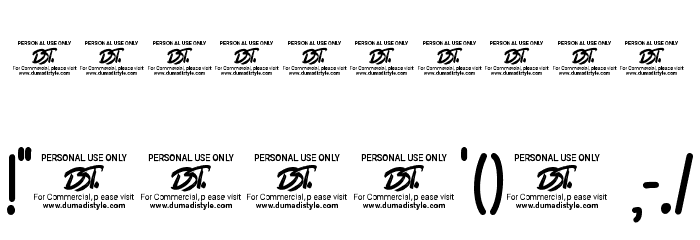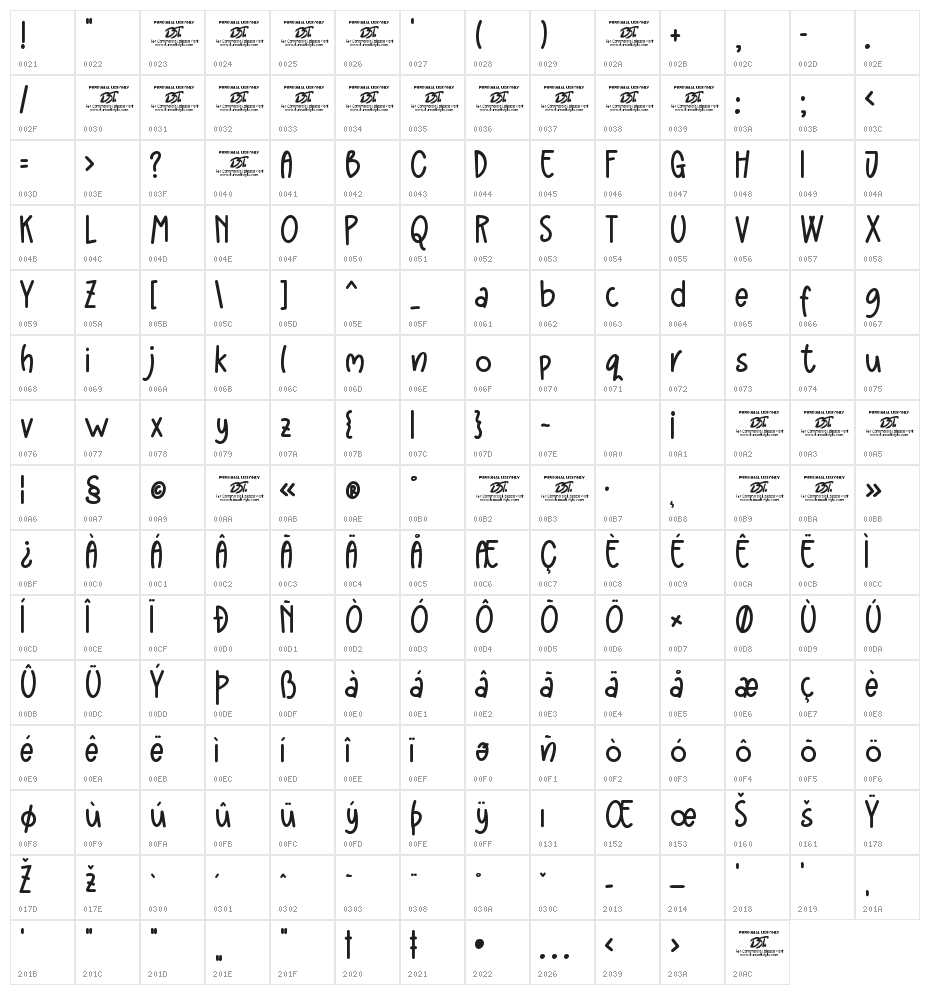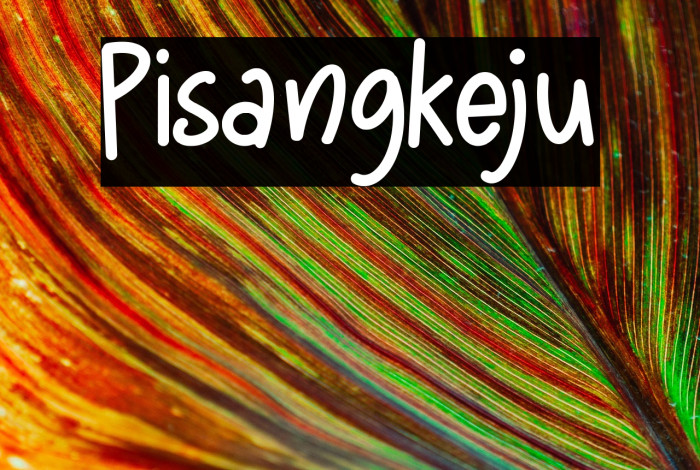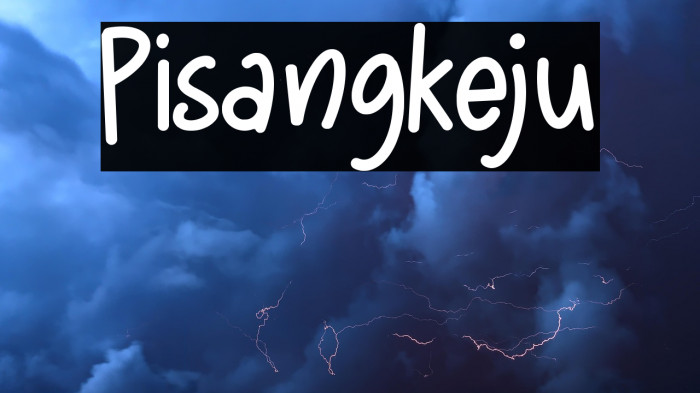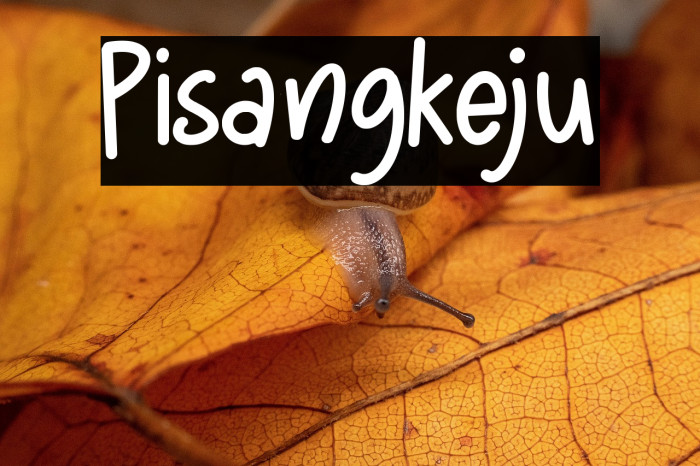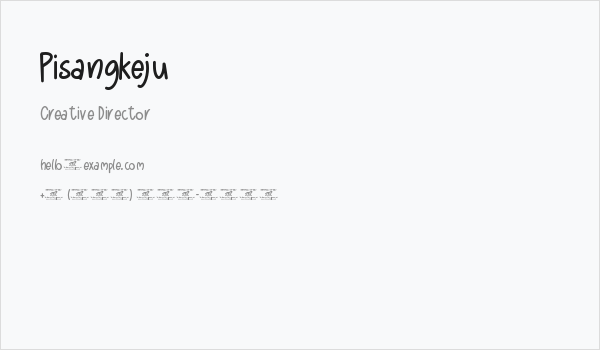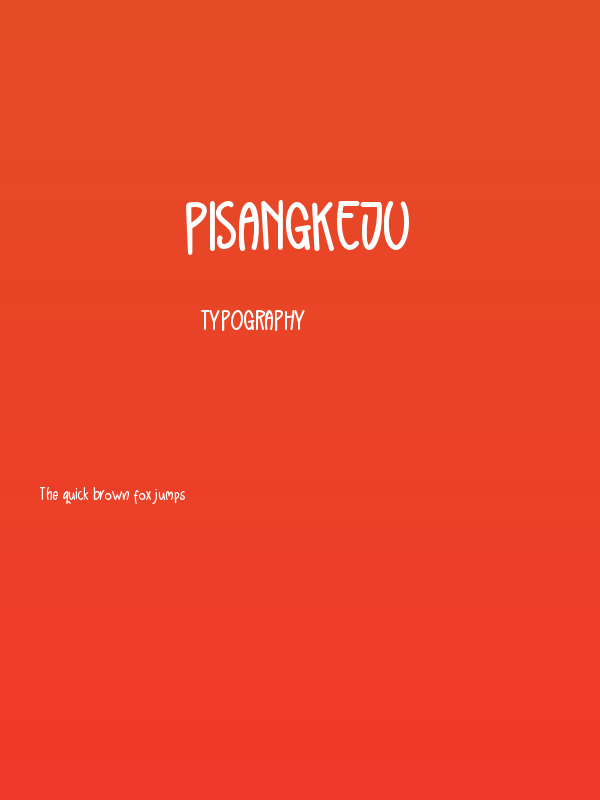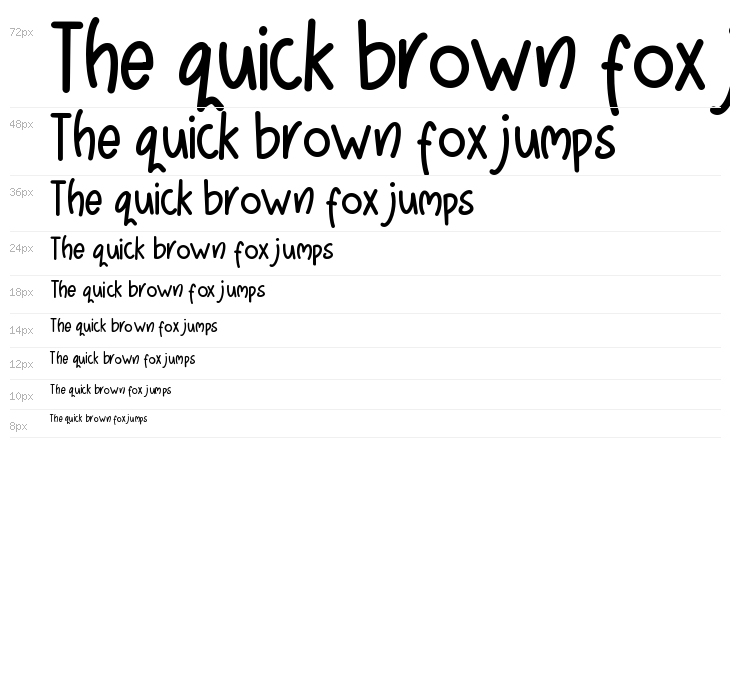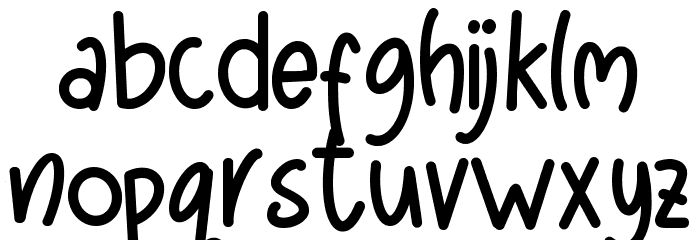
Pisangkeju Font
Pisangkeju Description
This playful and whimsical font features a handwritten style with a casual and friendly appearance. The letters are slightly irregular, adding a personal touch and making it ideal for informal designs. The uppercase and lowercase characters are well-balanced, with a consistent stroke width that maintains readability. The font includes a full set of numerals and a selection of special characters, enhancing its versatility. Its unique charm makes it suitable for creative projects that require a touch of personality.
| Overall Style | Casual and playful |
| Use Case | Headlines, Logos, Informal text |
| Proposed Projects | Ideal for greeting cards, children's books, playful branding, and social media graphics. |